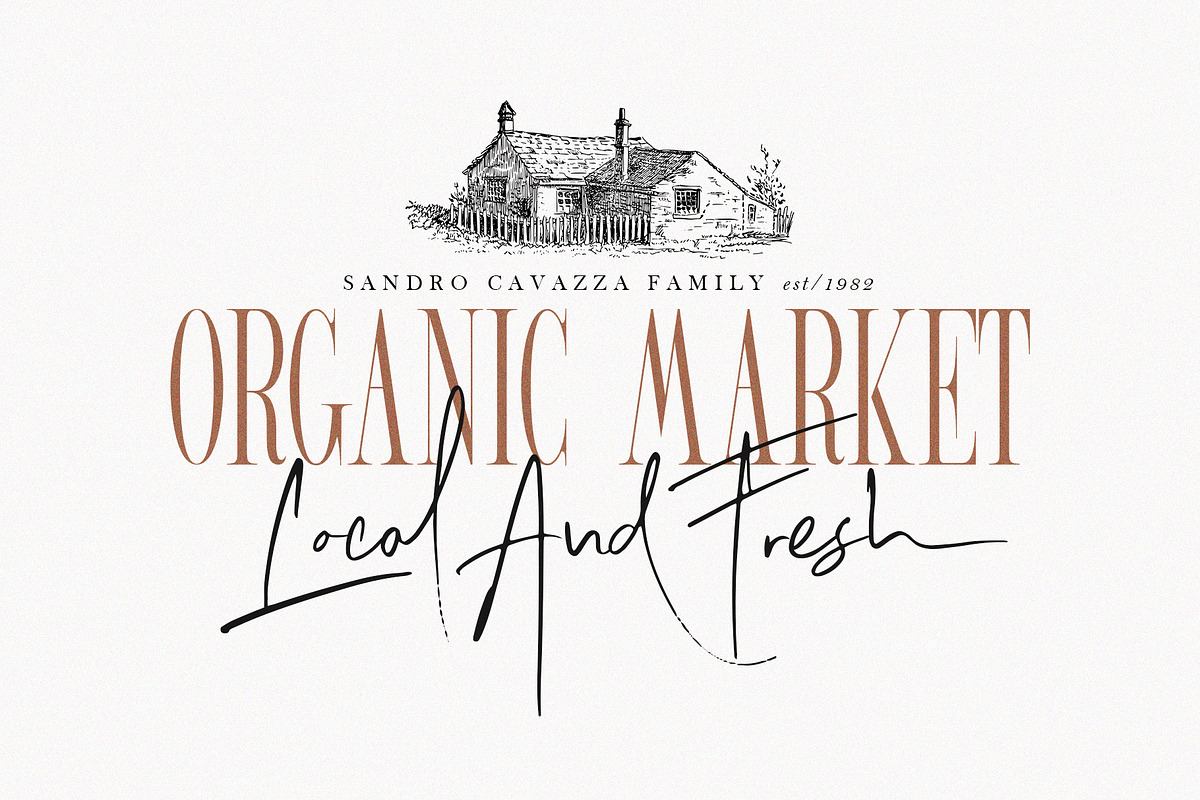
Batick Rodist | Font Duo Free Download
Batick Rodist | Font Duo Free Download offers a stunning blend of elegant serif and stylish script fonts, making it the perfect combo for standout branding, wedding invitations, social media posts, and high-end packaging. The contrast between the clean serif and the flowing handwritten script creates a modern, sophisticated aesthetic that’s both versatile and eye-catching.
Whether you're working on a logo or designing a magazine layout, this font duo adapts beautifully to various design needs. The harmonious pairing allows for endless creative possibilities, while maintaining a polished and professional look.